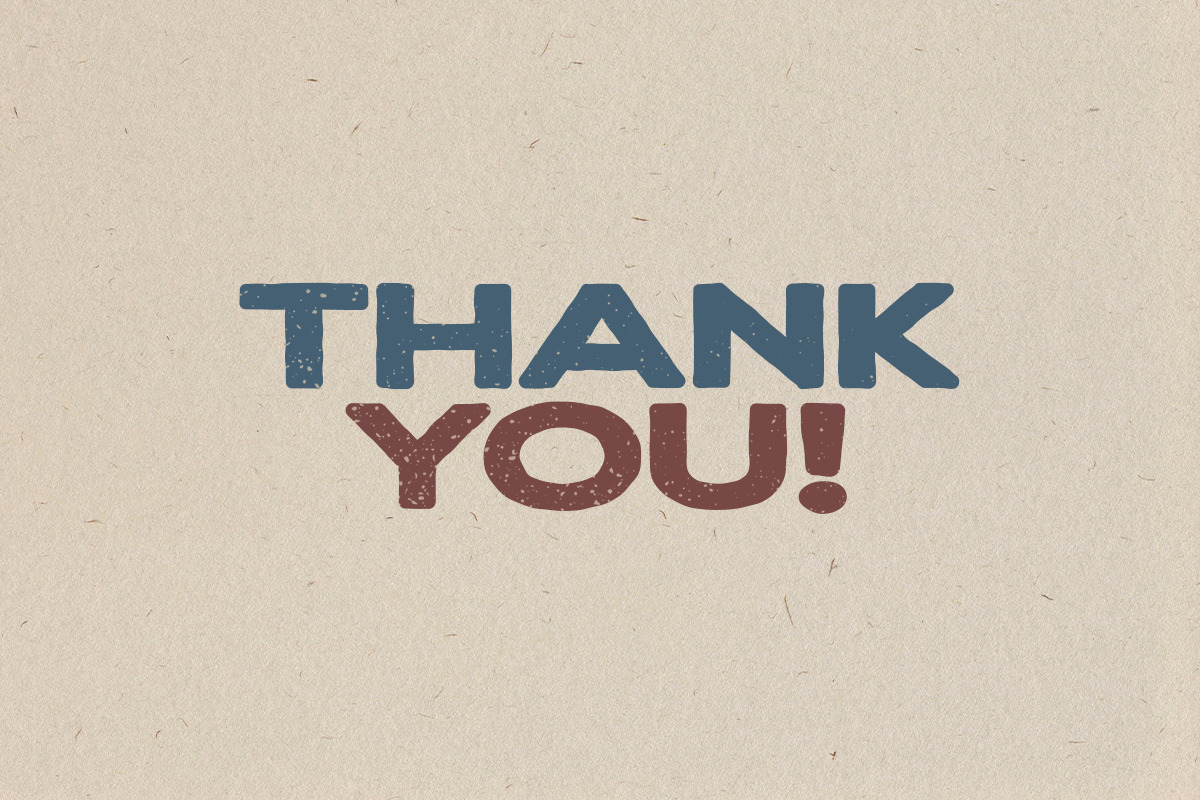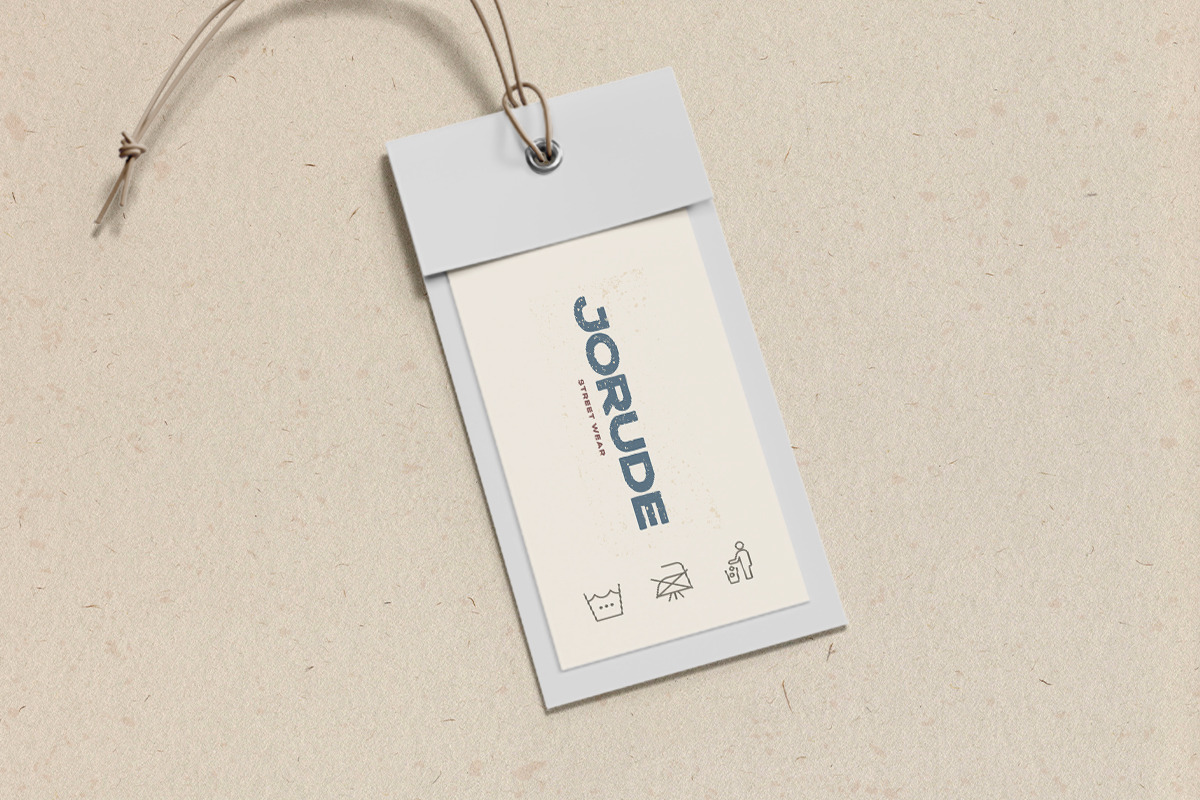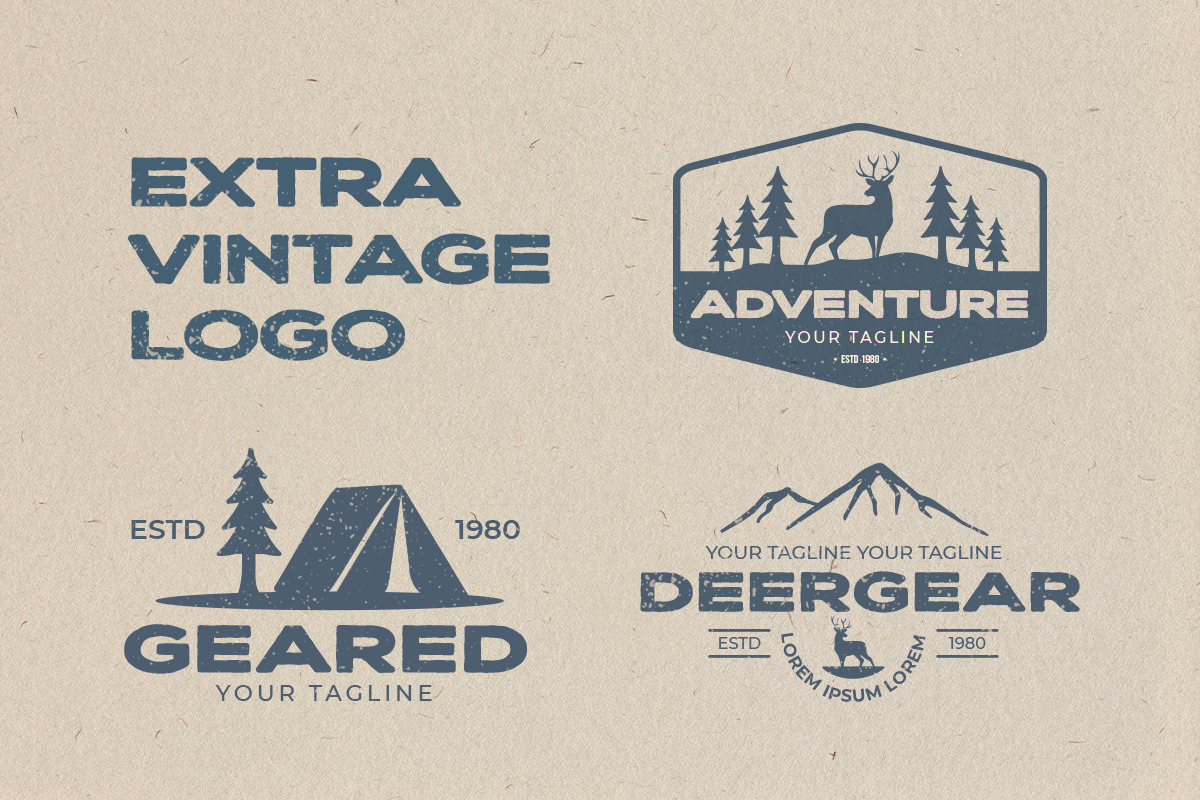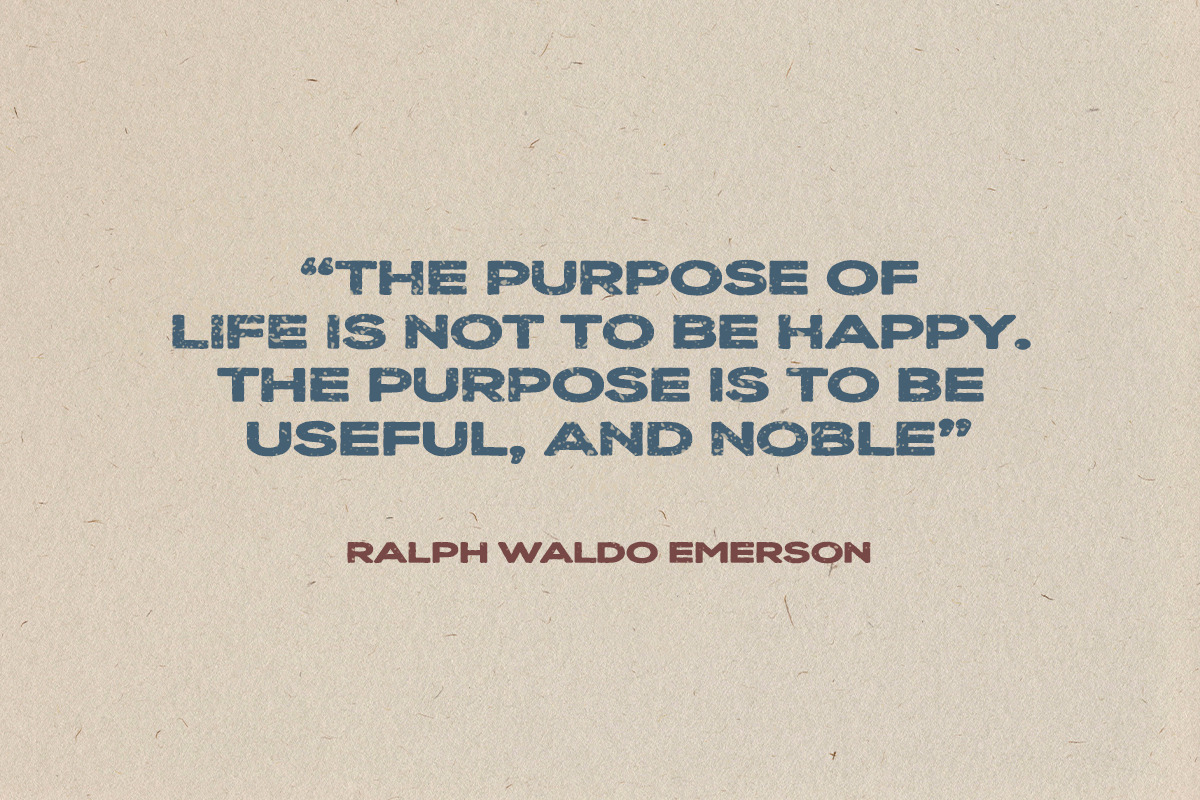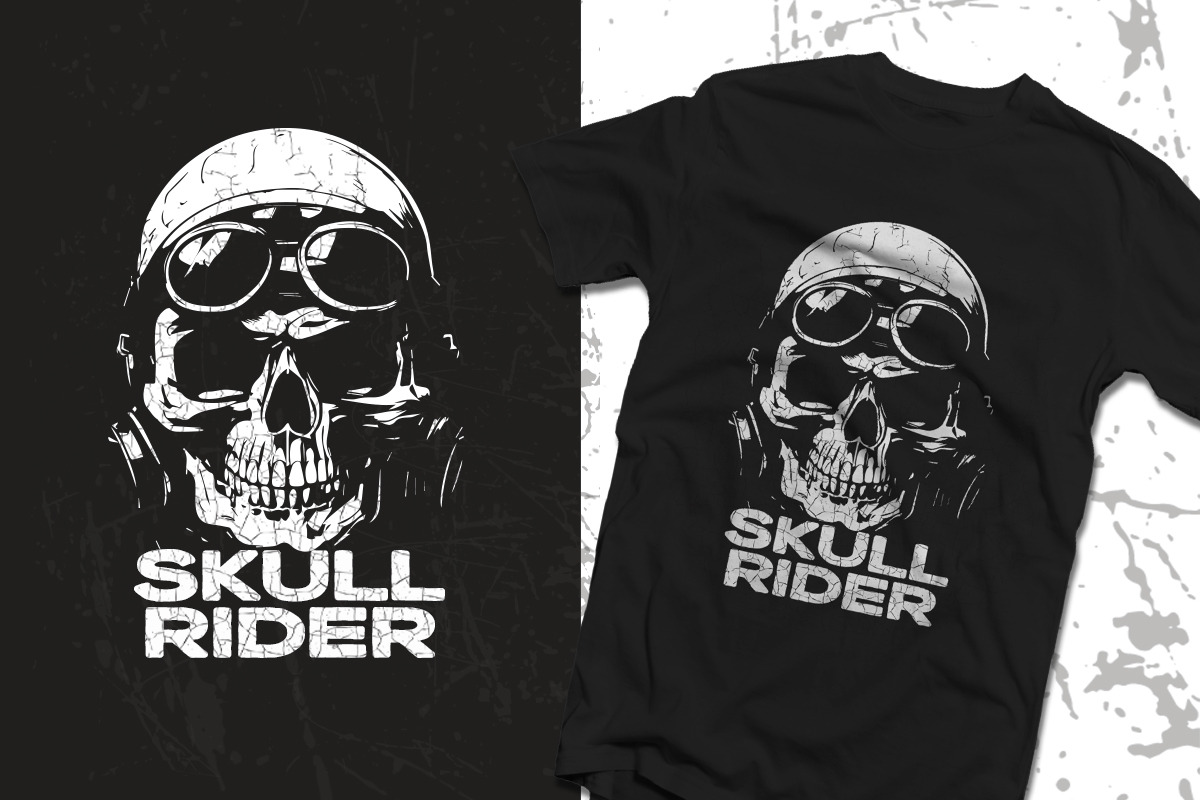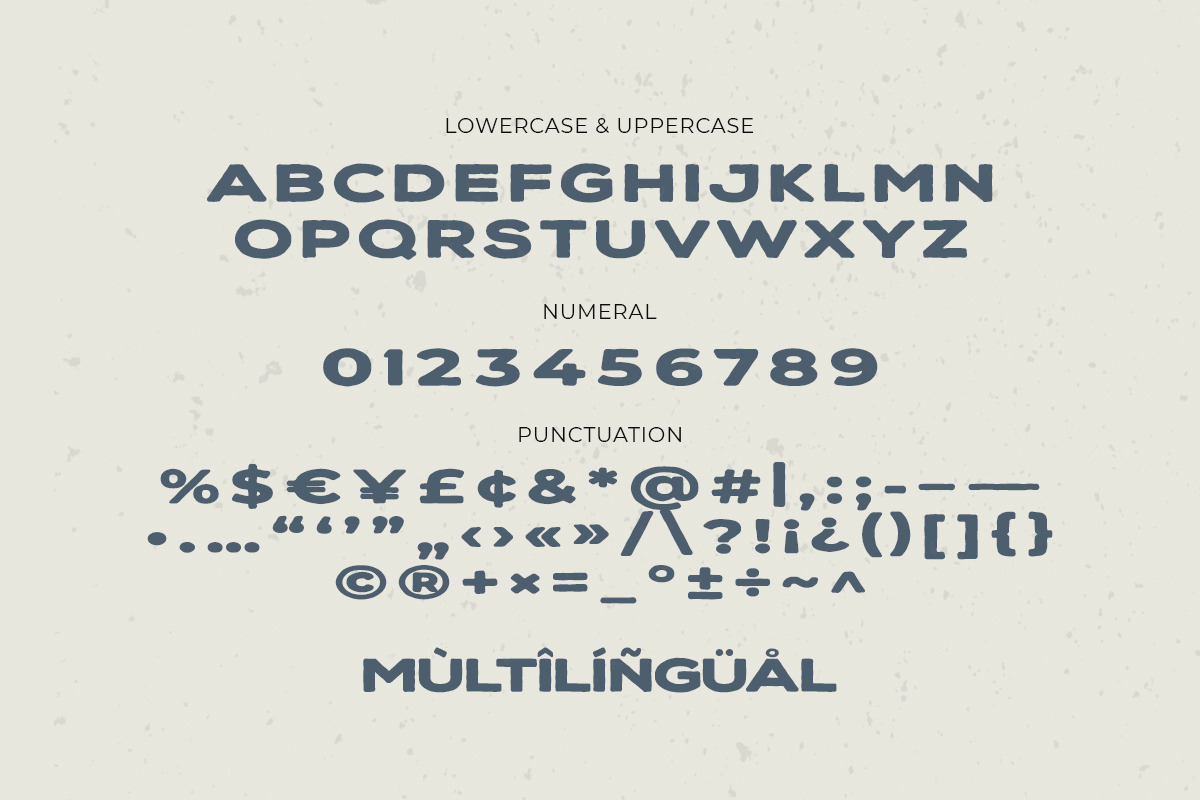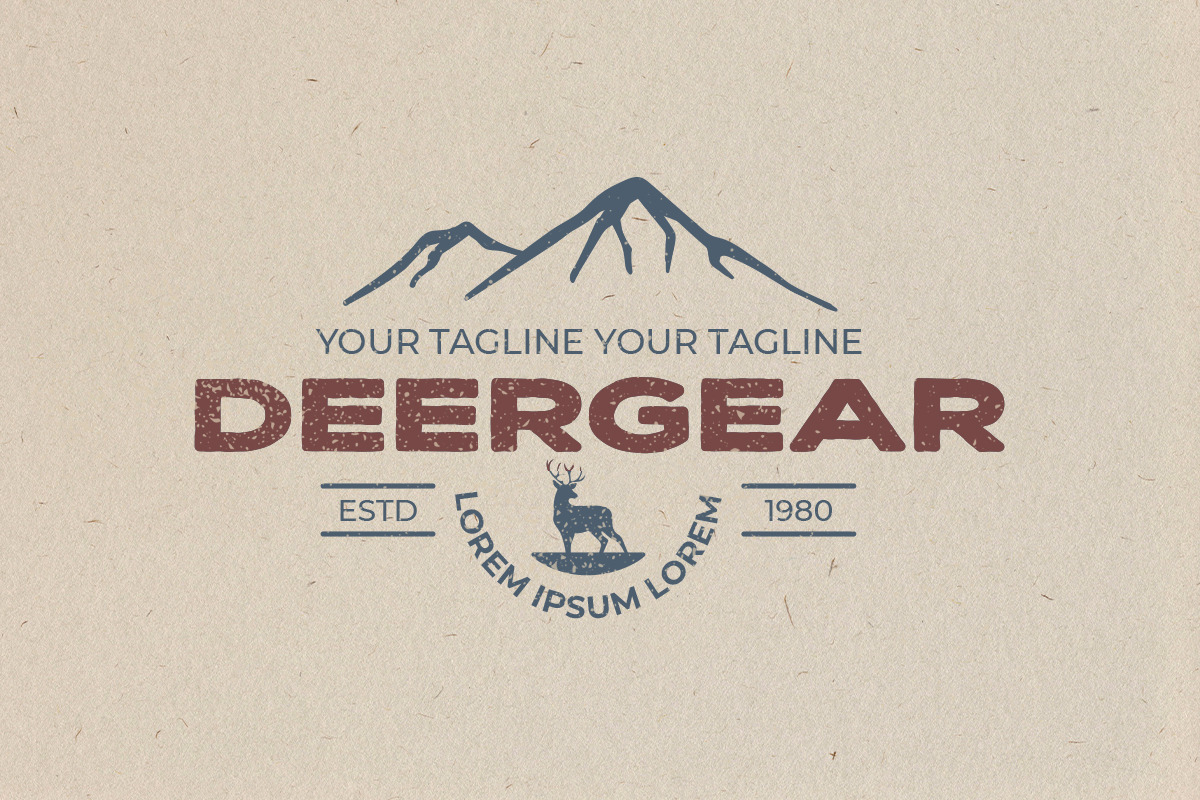
Jorude - Handdrawn Vintage
Jorude is an organic hand-drawn font that effortlessly blends modern simplicity with a vintage feel. Its handcrafted details and organic curves give it a distinctive and eye-catching character. Jorude offers endless creative possibilities. Perfect for adding a touch of vintage style to your contemporary designs, or for creating authentic visuals.
- All glyphs with Caps styles
- Multilingual characters
- Extra Vintage Logo